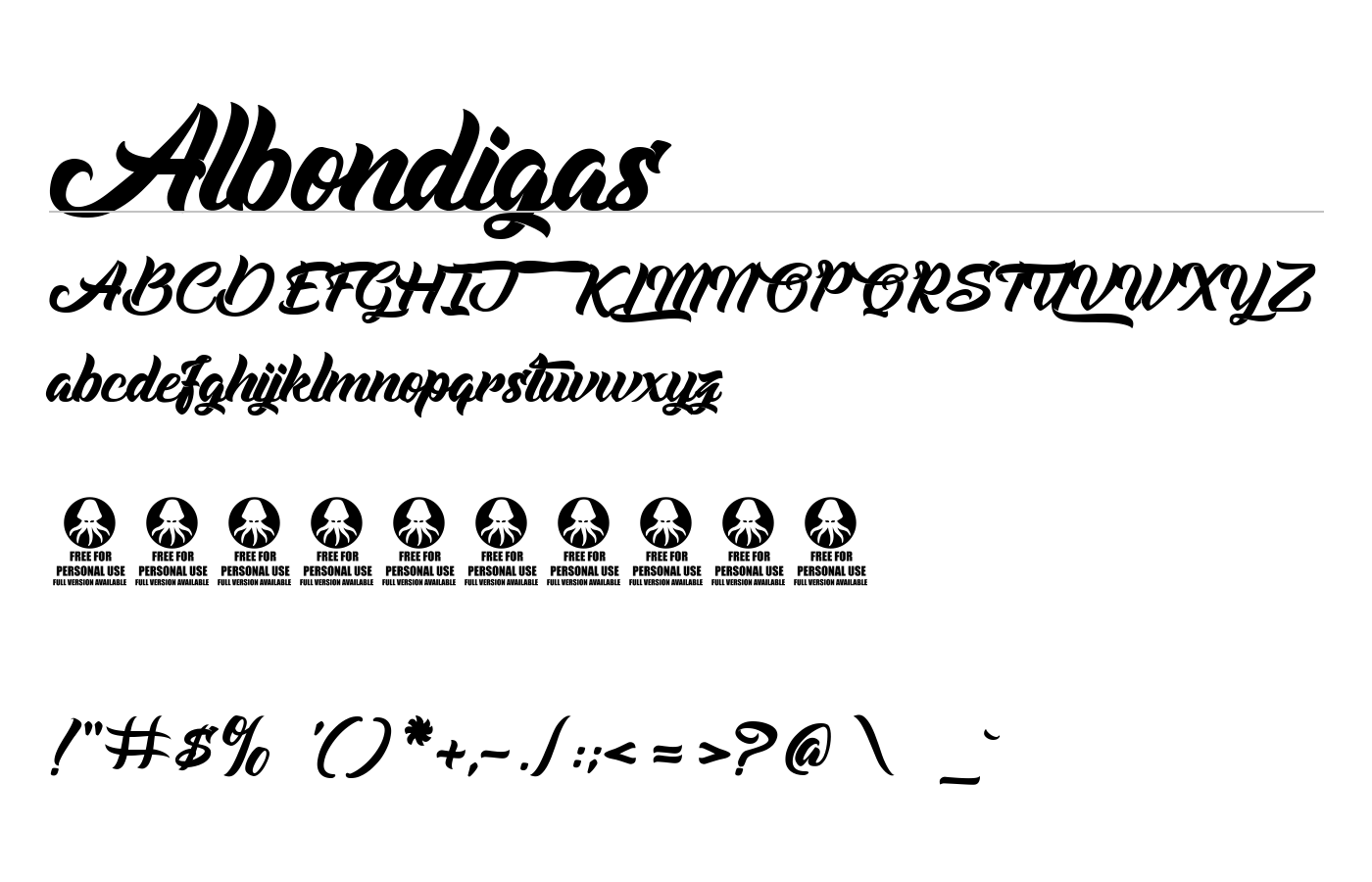
Albondigas is a bold and energetic script font characterized by its thick, smooth strokes and connected, flowing letterforms. With a lively, hand-lettered feel and moderate contrast, it brings a playful yet confident personality that works well for creative branding, logos, and eye-catching headlines. This font’s expressive style makes it ideal for projects seeking a dynamic and stylish touch with a handcrafted vibe.
Albondigas Font
About Albondigas Font
| Designer | Octotype |